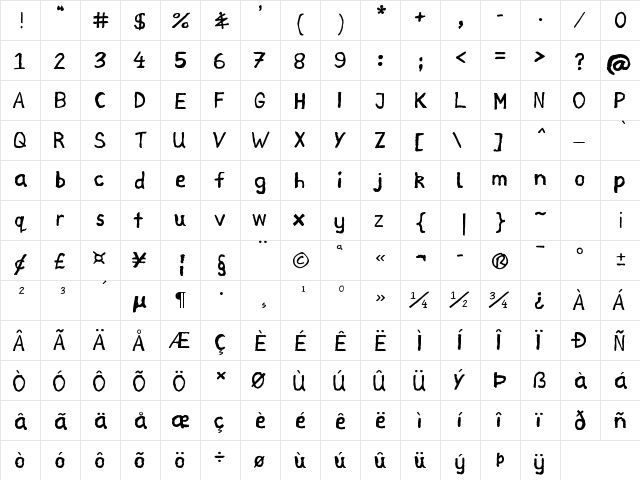
Kelly Script Regular Font Preview
Kelly Script Regular
Design Context for Kelly Script Typeface
Kelly Script flows with the natural rhythm of handwritten lettering, making it ideal for designs that call for warmth and personal expression.
Font Pairing: Combine Kelly Script with a simple geometric sans for maximum contrast — the tension between flowing curves and clean structure is a classic typographic pairing.
Pro Tip: Use Kelly Script for short runs of text — names, titles, or taglines. Extended body copy in script faces tires the eye quickly.